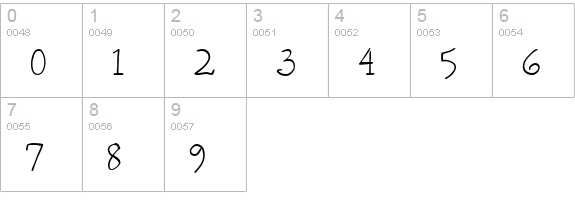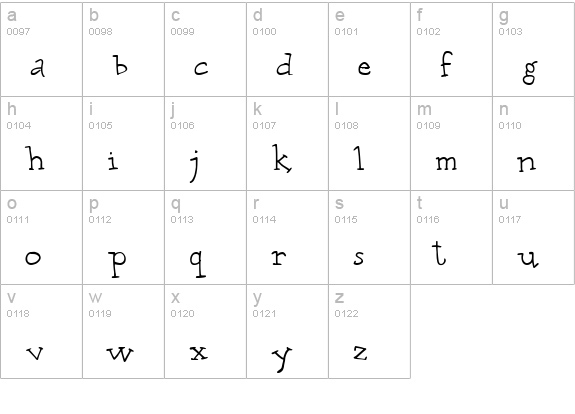
CK Lazy Days Font Details
Introducing CK Lazy Days font, a whimsical and charming typeface perfect for adding a touch of playfulness to your designs. This delightful font features a hand-drawn style with quirky details that make it stand out. CK Lazy Days is free for personal and commercial use, making it a versatile choice for a wide range of projects. Whether you're working on invitations, posters, or branding materials, this font will bring a fun and lighthearted feel to your work. Download CK Lazy Days for free at FontsMarket.com and let your creativity shine with this unique and cheerful typeface.